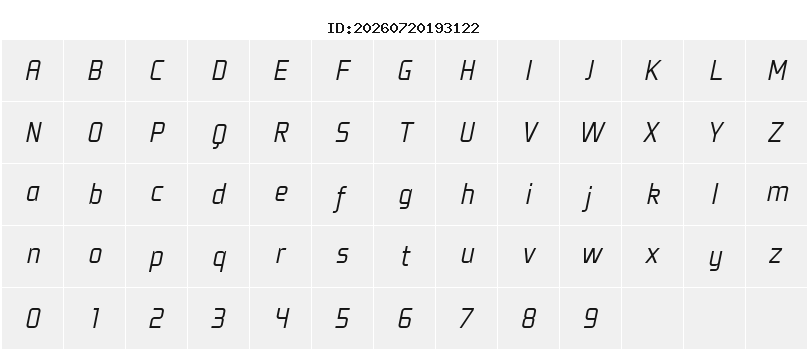
• Font Name: Fragma
• Font Style: Light Italic
• Full Font Name: Fragma Light Italic
Fragma.ttf is a modern, elegant sans-serif font designed for ultimate readability and visual harmony. Perfect for branding, headlines, web design, and print materials.